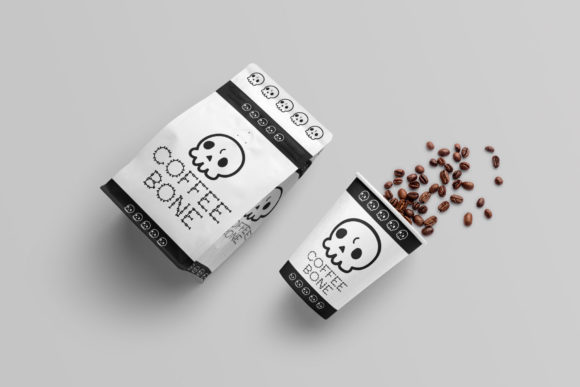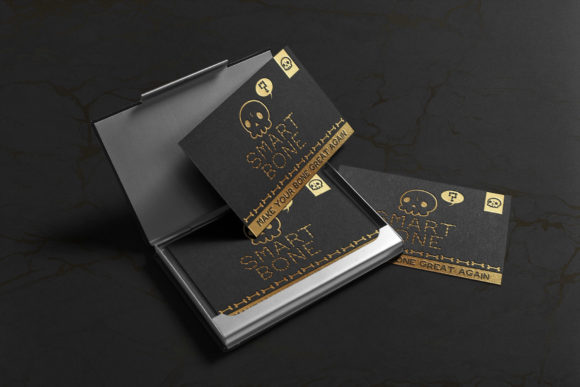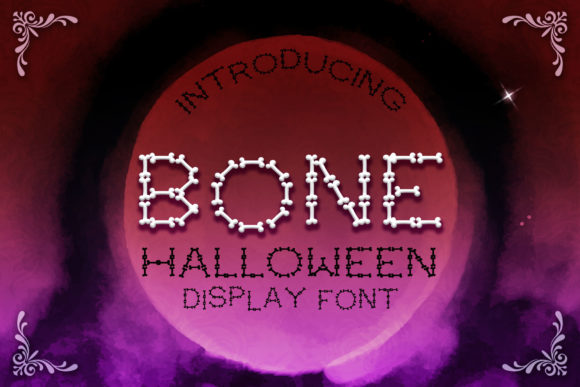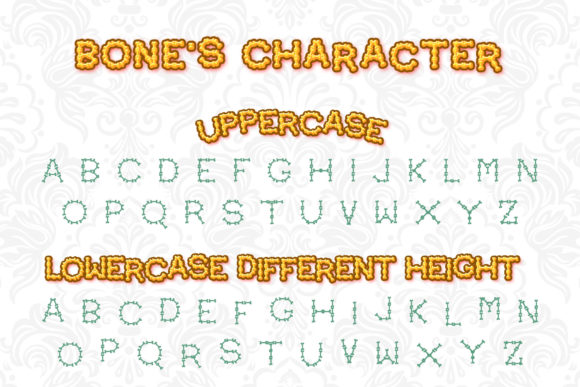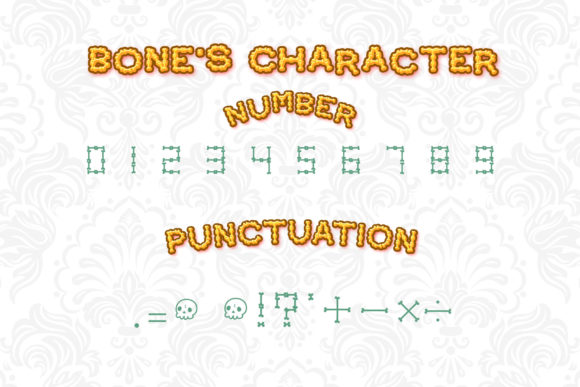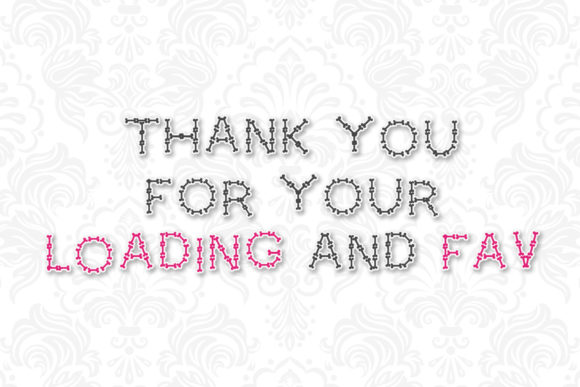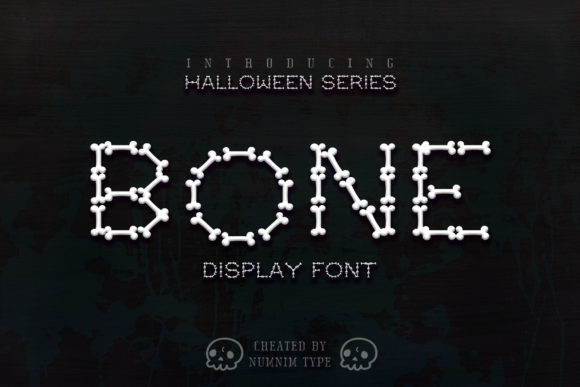
Bone Font: The Spooky Display Font for Your Halloween Projects
Bone is a great display font that features a spooky look, making it perfect for your Halloween-themed projects! This font is designed to add a touch of eeriness and playfulness to your designs, and it’s ideal for crafters and designers looking for a unique and eye-catching font.
What Makes Bone Font So Special?
Bone font stands out from other display fonts due to its distinctive and haunting appearance. Its letters are designed to resemble bones, with a skeletal structure that gives off a spooky vibe. The font’s design is bold and striking, making it perfect for headlines, titles, and other display text.
Key Features of Bone Font
- Spooky and Playful Design: Bone font features a unique and playful design that’s perfect for Halloween-themed projects.
- Bold and Striking: The font’s bold and striking appearance makes it ideal for headlines, titles, and other display text.
- Easy to Read: Despite its unique design, Bone font is easy to read, making it perfect for use in a variety of projects.
- Versatile: Bone font can be used in a range of projects, from Halloween-themed designs to other spooky or playful projects.
Uses for Bone Font
Bone font is perfect for a range of projects, including:
- Halloween-themed designs: Use Bone font to create spooky and eye-catching designs for Halloween, including party invitations, decorations, and more.
- Signs and posters: The font’s bold and striking appearance makes it perfect for use in signs and posters.
- Logos and branding: Use Bone font to create a unique and memorable logo or brand identity.
- Crafting and DIY projects: Bone font is perfect for crafters and DIY enthusiasts looking to add a touch of personality to their projects.
Tips for Using Bone Font
Here are a few tips for using Bone font in your projects:
- Use it sparingly: Bone font is bold and striking, so use it sparingly to avoid overwhelming your design.
- Pair it with other fonts: Pair Bone font with other fonts to create a unique and visually appealing design.
- Experiment with colors: Bone font looks great in a range of colors, so experiment with different colors to find the perfect look for your project.
Bone font is a unique and eye-catching display font that’s perfect for Halloween-themed projects and other spooky or playful designs. Its bold and striking appearance makes it ideal for headlines, titles, and other display text, and it’s easy to read and versatile. Whether you’re a designer or crafter, Bone font is a great addition to your font collection.
- What type of font is Bone font?: Bone font is a display font, perfect for headlines, titles, and other display text.